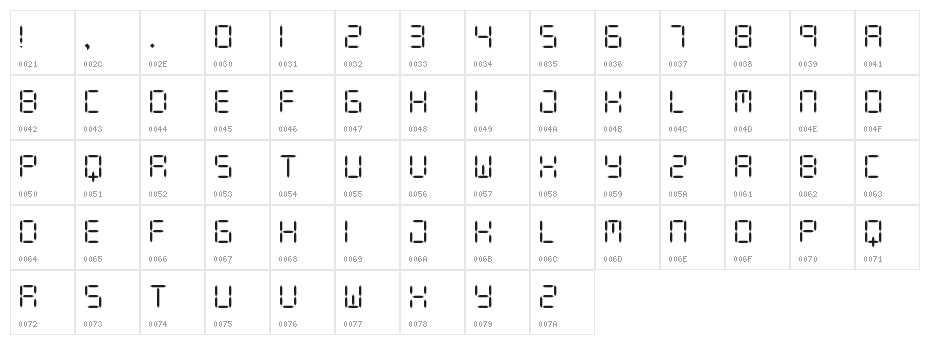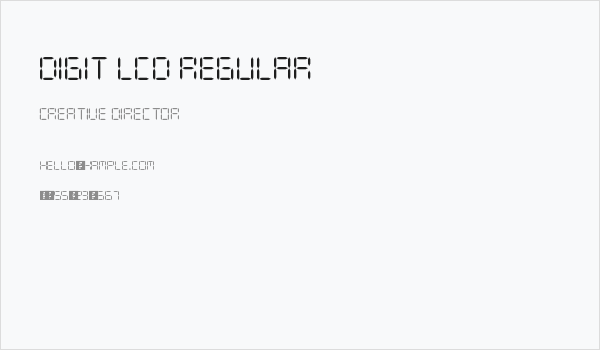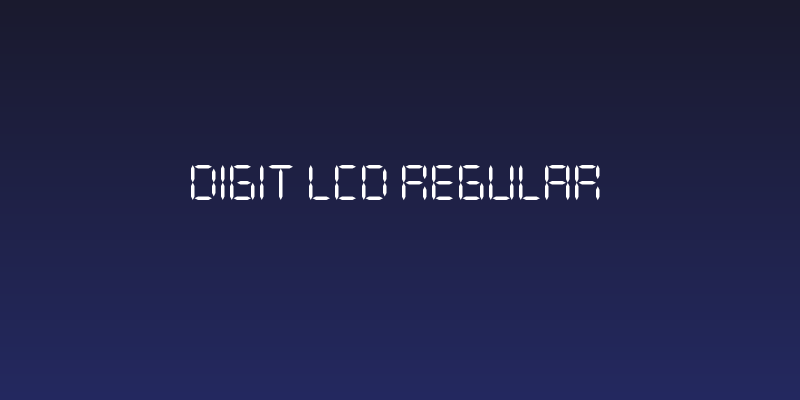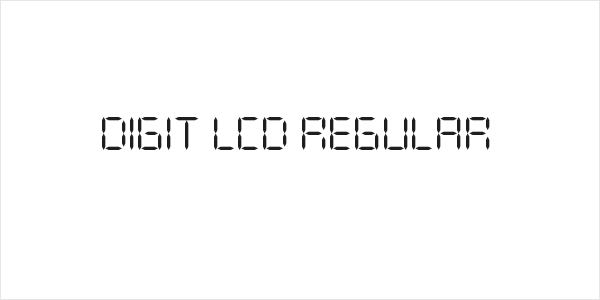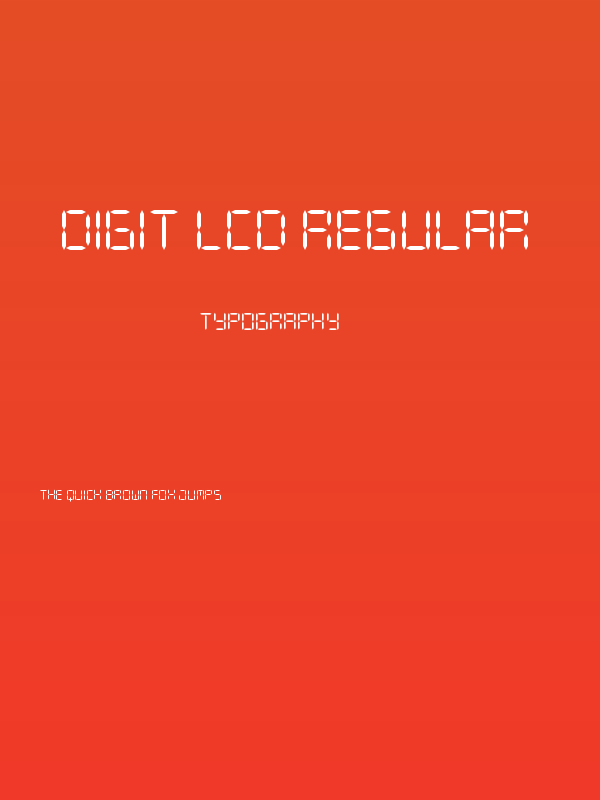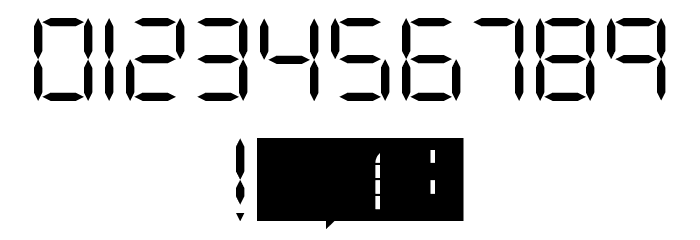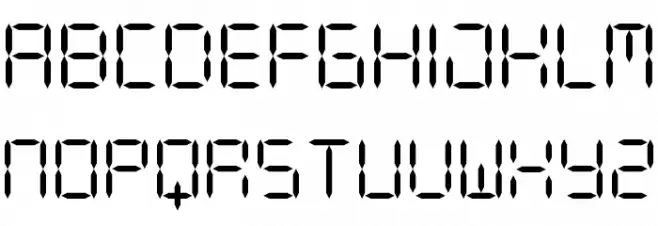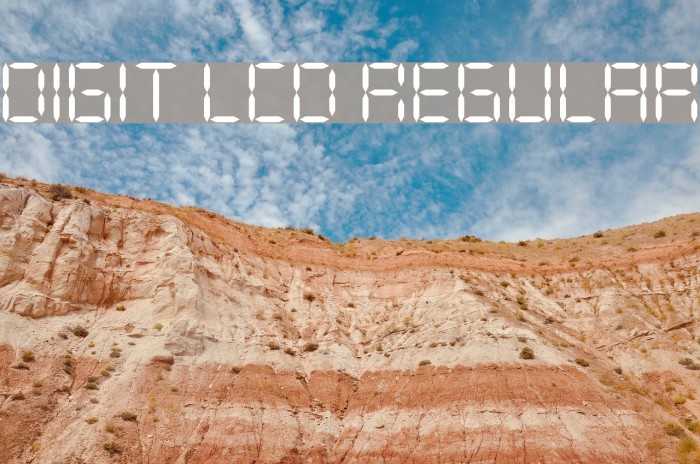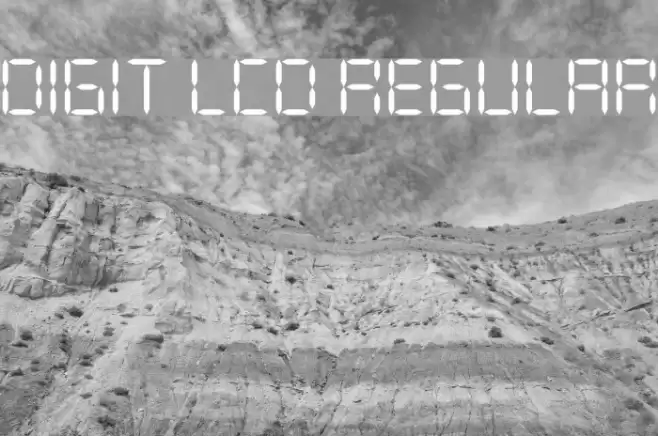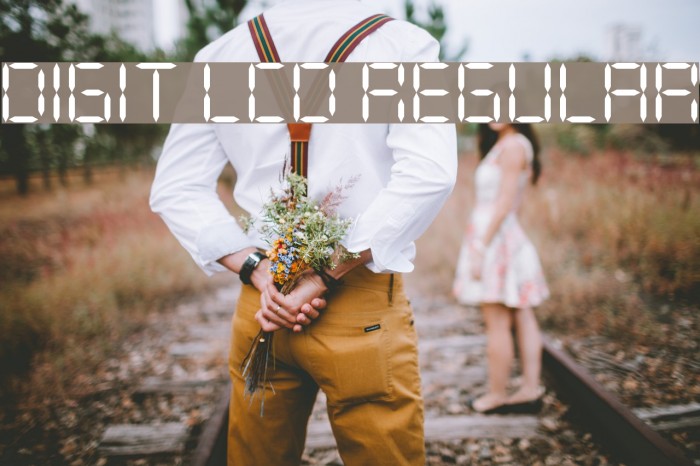
DIGIT LCD Regular Font
DIGIT LCD Regular Description
This font mimics the appearance of a digital LCD display, characterized by its segmented, block-like structure. Each character is composed of straight lines and angles, reminiscent of the numbers and letters seen on digital clocks or calculators. The design is highly geometric, with uniform stroke width and a mechanical feel. The font is monospaced, ensuring each character takes up the same amount of horizontal space, which enhances its digital aesthetic. The uppercase and lowercase letters share the same height, maintaining consistency across the text. The numerals and special characters follow the same segmented style, providing a cohesive look throughout.
| Use Case | Logos, Digital displays, Tech interfaces |
| Proposed Projects | Ideal for digital-themed projects, tech-related branding, or retro-futuristic designs. Suitable for use in digital interfaces, electronic device displays, or any project requiring a technological or modern touch. |